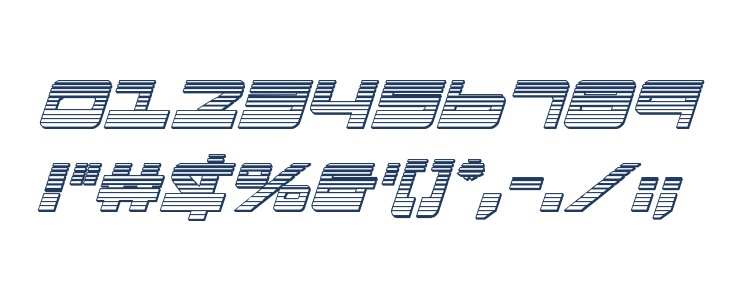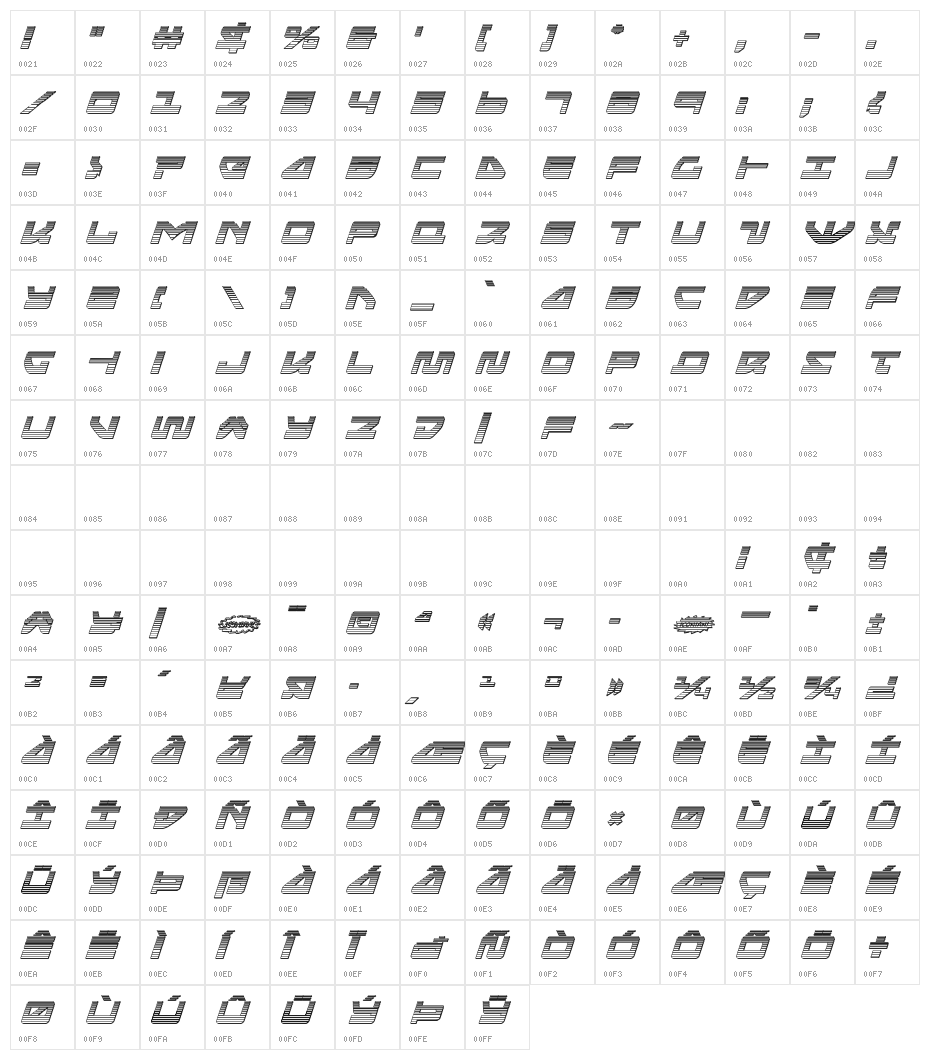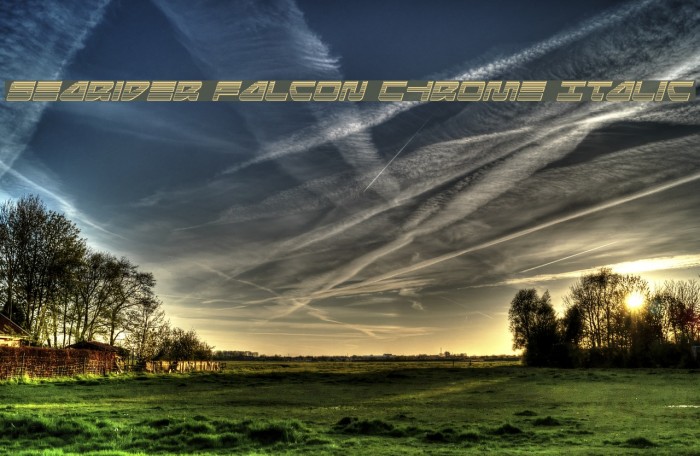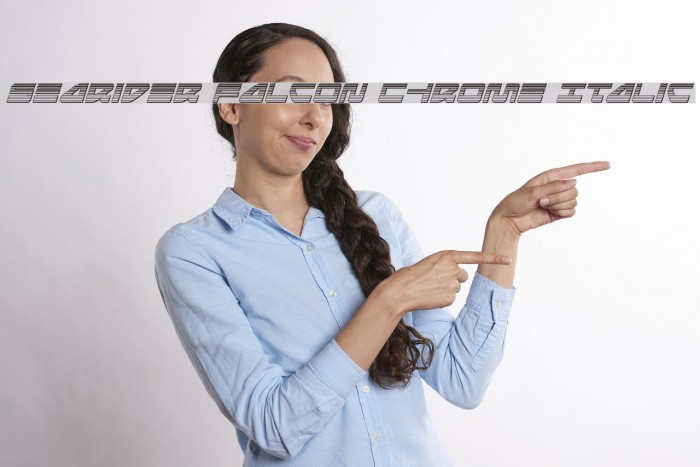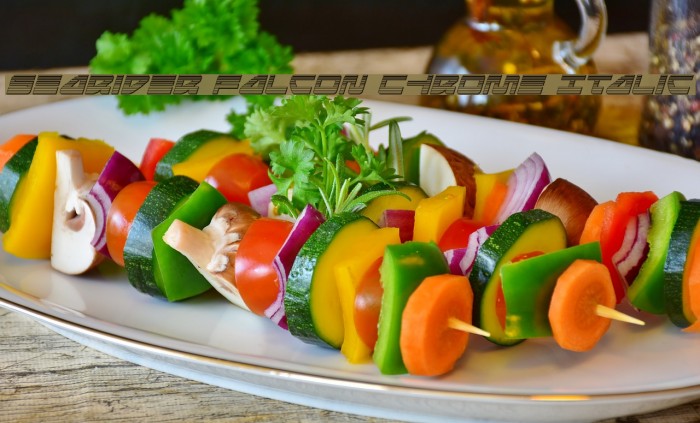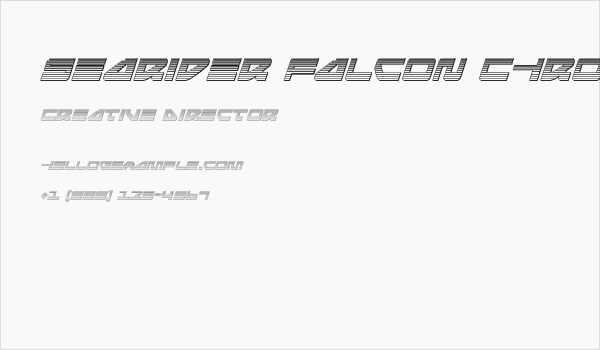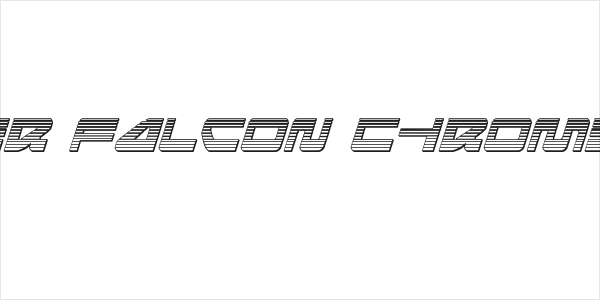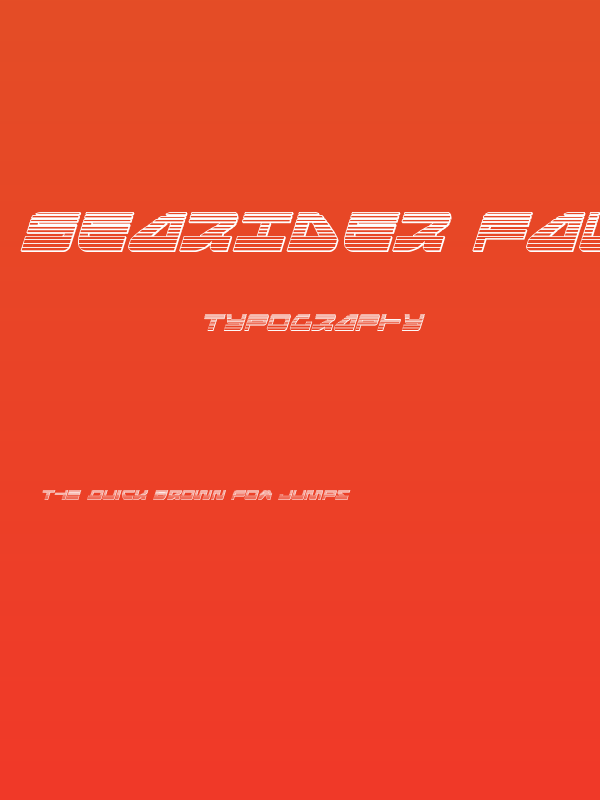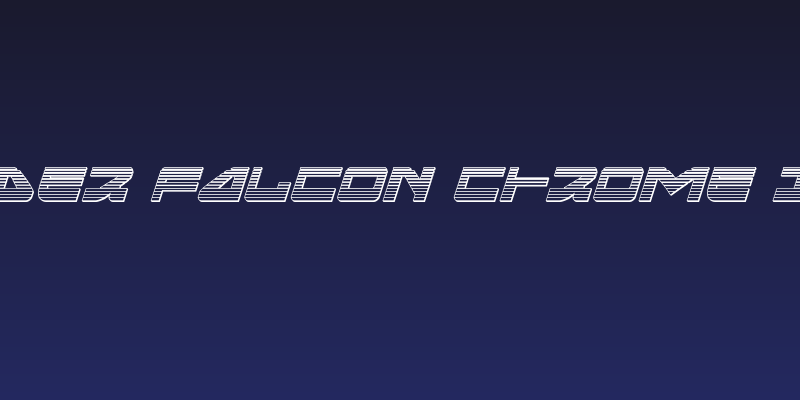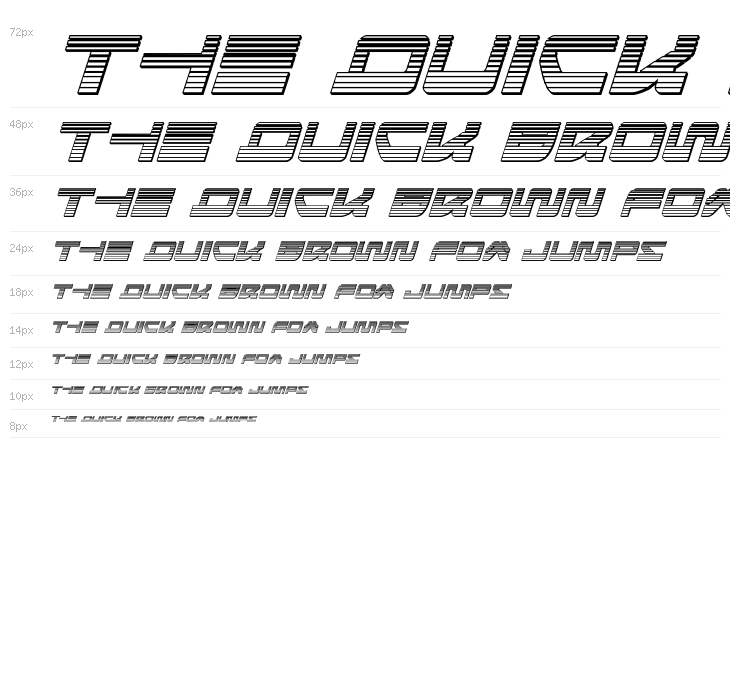
Searider Falcon Chrome Italic Font
Searider Falcon Chrome Italic Description
This font features a futuristic and dynamic design with a distinct chrome-like appearance. The characters are composed of multiple parallel lines, creating a striped effect that adds depth and dimension. The italic slant enhances the sense of motion and speed, making it ideal for projects that require a modern and edgy look. The uppercase and lowercase letters maintain a consistent style, while the numerals and special characters complement the overall aesthetic. This font is perfect for designs that aim to capture attention and convey a sense of innovation.
| Proposed Projects | Ideal for sci-fi themed posters, tech company branding, video game titles, and futuristic event invitations. |